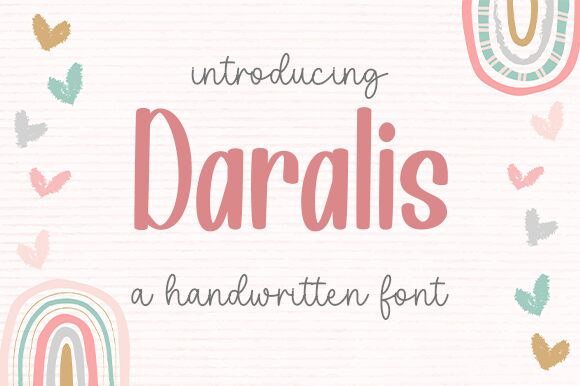
Daralis
Introducing Daralis, a lovely handwritten font from designer Aldi Raya Pradipta with a narrow width. Perfect for crafting eye-catching headlines, logos, and branding projects that need a touch of personality.